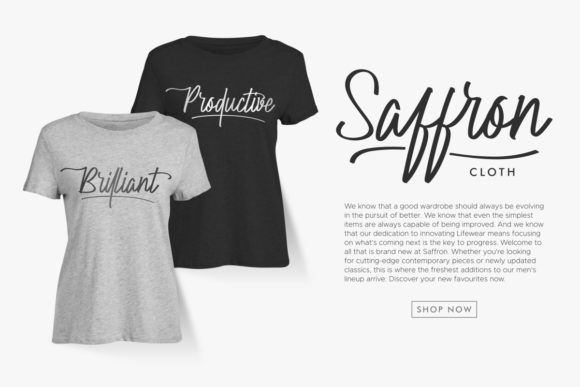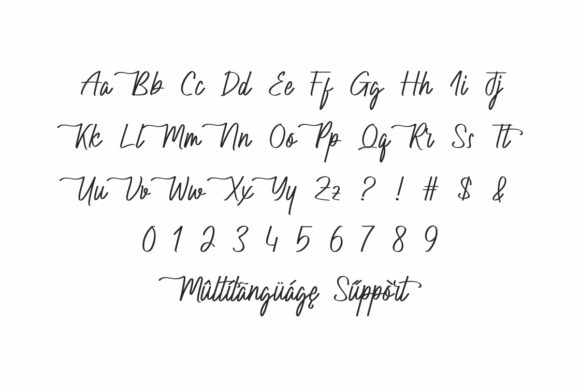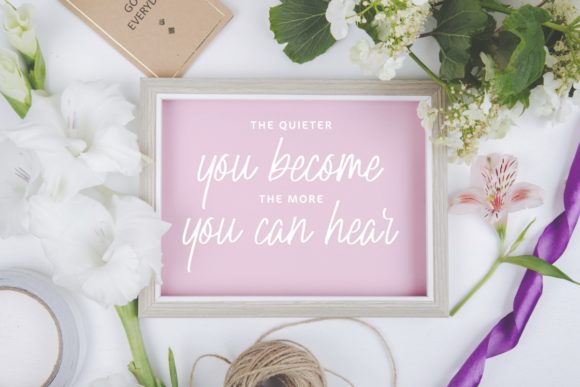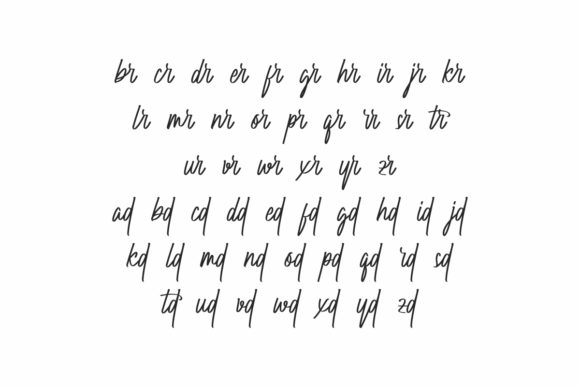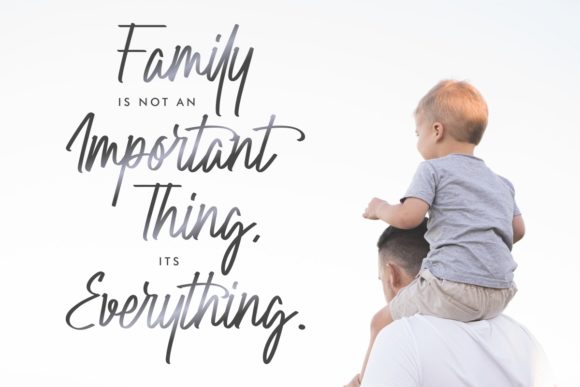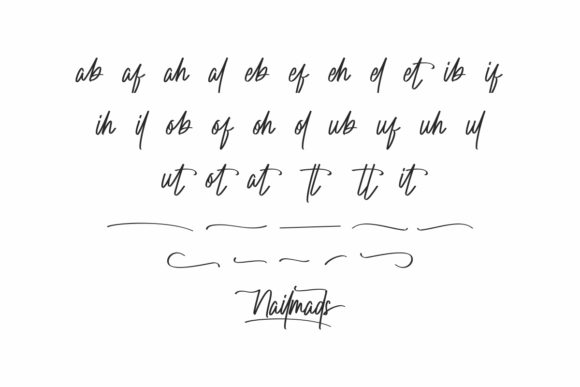
Introduction to Nailmads Font
As a designer, you’ve probably found yourself staring at a blank canvas, waiting for that perfect font to bring your creative project to life. It’s in these moments of uncertainty that we turn to the world of typography to find the missing piece. And, for many of us, that missing piece is a font that exudes high-quality style and sophistication – a font like the Nailmads Font.
This modern handwritten font has been making waves in the design community, thanks to its elegant curves and versatility. Whether you’re working on a fashion branding project or an editorial design, the Nailmads Font is the perfect addition to your design resource arsenal. With its transparent background and free download option, it’s an accessible and valuable resource for designers of all levels.
Key Features of Nailmads Font
- High-quality, bold font suitable for creative projects, including nail art designs and beauty-related themes.
- Unique characteristics include stylized letterforms, decorative flourishes, and a modern aesthetic.
- Suitable for a variety of design applications, including digital art, print materials, and web design.
Honest Review: Nailmads Font
I recently stumbled upon the Nailmads Font and I must say, I’m impressed. This free download is a game-changer for any creative project that requires a unique, high-quality font. The transparent background makes it easy to work with, and the sleek design is perfect for modern designs.
- ✨ High-quality design that looks professional
- ✨ Transparent background makes it easy to use with different backgrounds
- ⚠️ Limited character set, may not be suitable for extensive text-based projects
- ⚠️ Some users may find the font a bit too modern or trendy
Overall, I’m very impressed with the Nailmads Font. It’s a great addition to any designer’s toolkit, and it’s perfect for creative projects that require a unique, high-quality font. I highly recommend giving it a try!
Nailmads Font
Tips for Getting the Most Out of Nailmads Font
- Experiment with different font sizes and colors to create a unique look.
- Combine Nailmads Font with other design elements to create a cohesive design.
- Use the font in conjunction with other design resources to add depth and interest to your project.
- Logo design and branding
- Graphic design and digital art
Comparison to Nailmads Font: Alex Brush Font has a more whimsical and playful appearance, making it suitable for projects that require a touch of personality. It’s also highly versatile, allowing designers to use it for a wide range of creative projects.
Carolyna Pro is a high-quality, modern script font that’s perfect for designers who want to create sleek and sophisticated designs. It’s ideal for use on transparent backgrounds, allowing your design to shine. This free download is a great alternative to Nailmads Font for designers looking for a stylish and professional font.